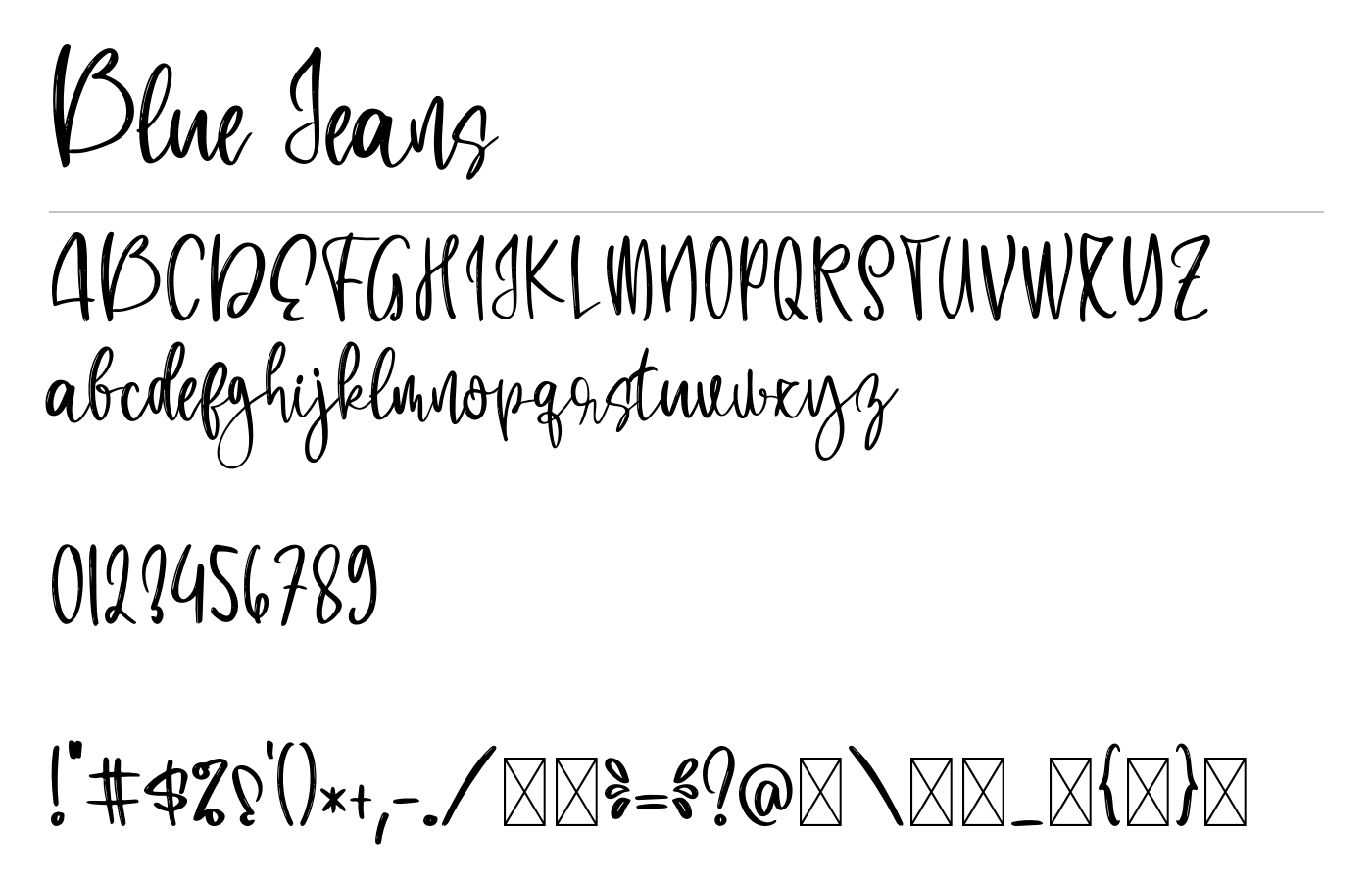
Blue Jeans is a playful, hand-drawn script font with a casual and lively feel. Its tall, narrow letterforms and smooth, flowing strokes give it a youthful and artistic personality, making it ideal for creative projects, informal branding, and inviting headlines that seek a personal touch. This font works well in settings where a handwritten, approachable style adds charm and character.
Blue Jeans Font